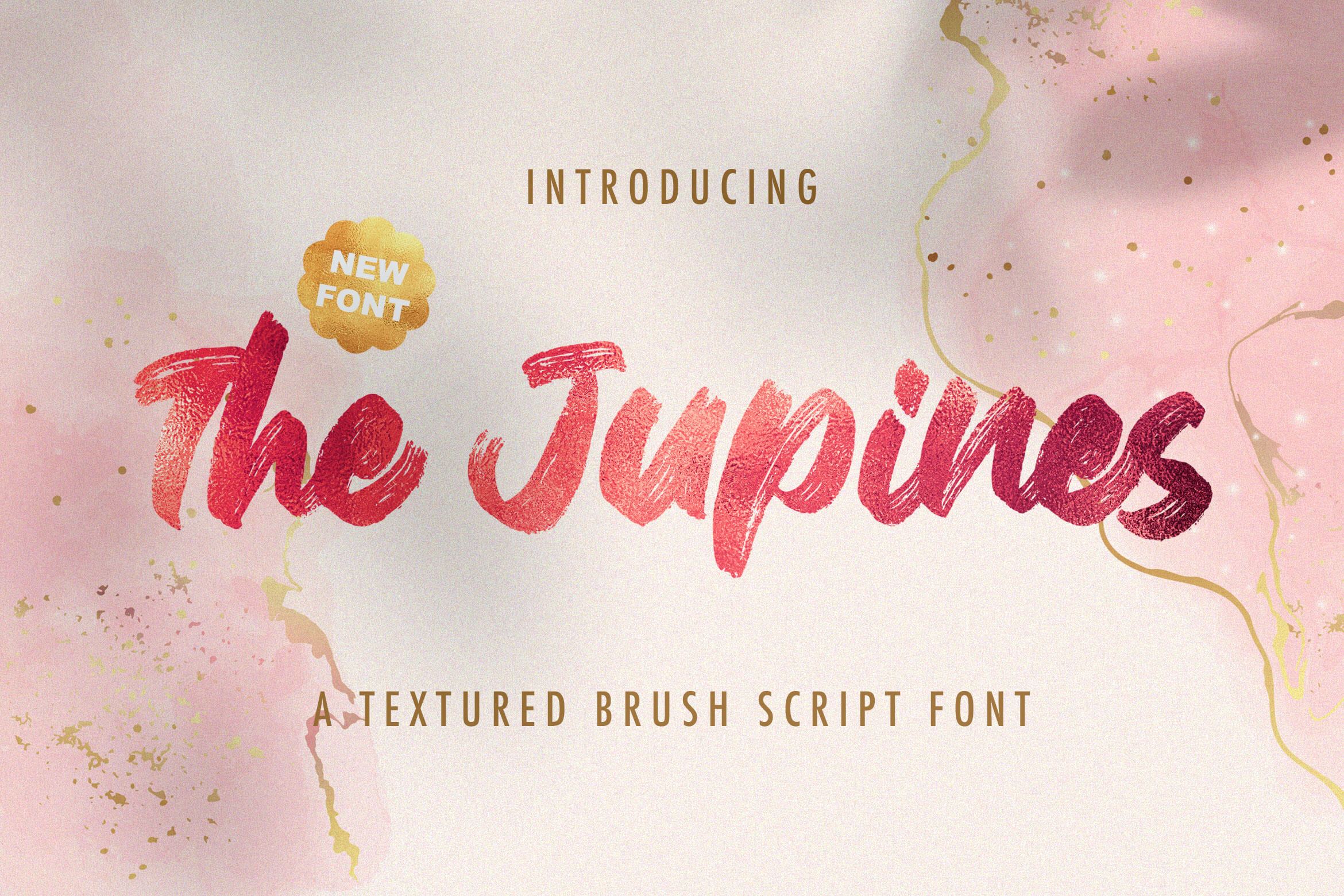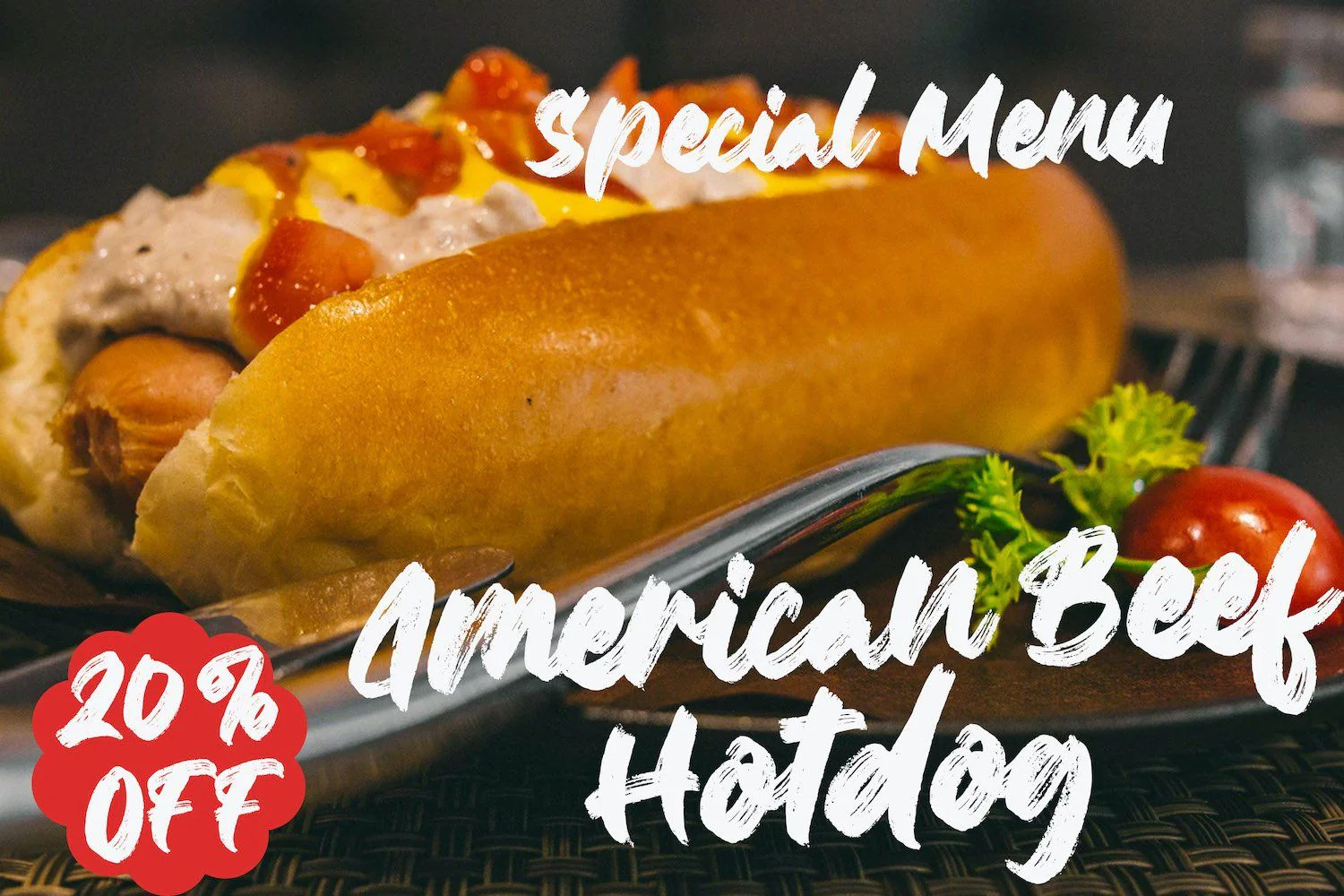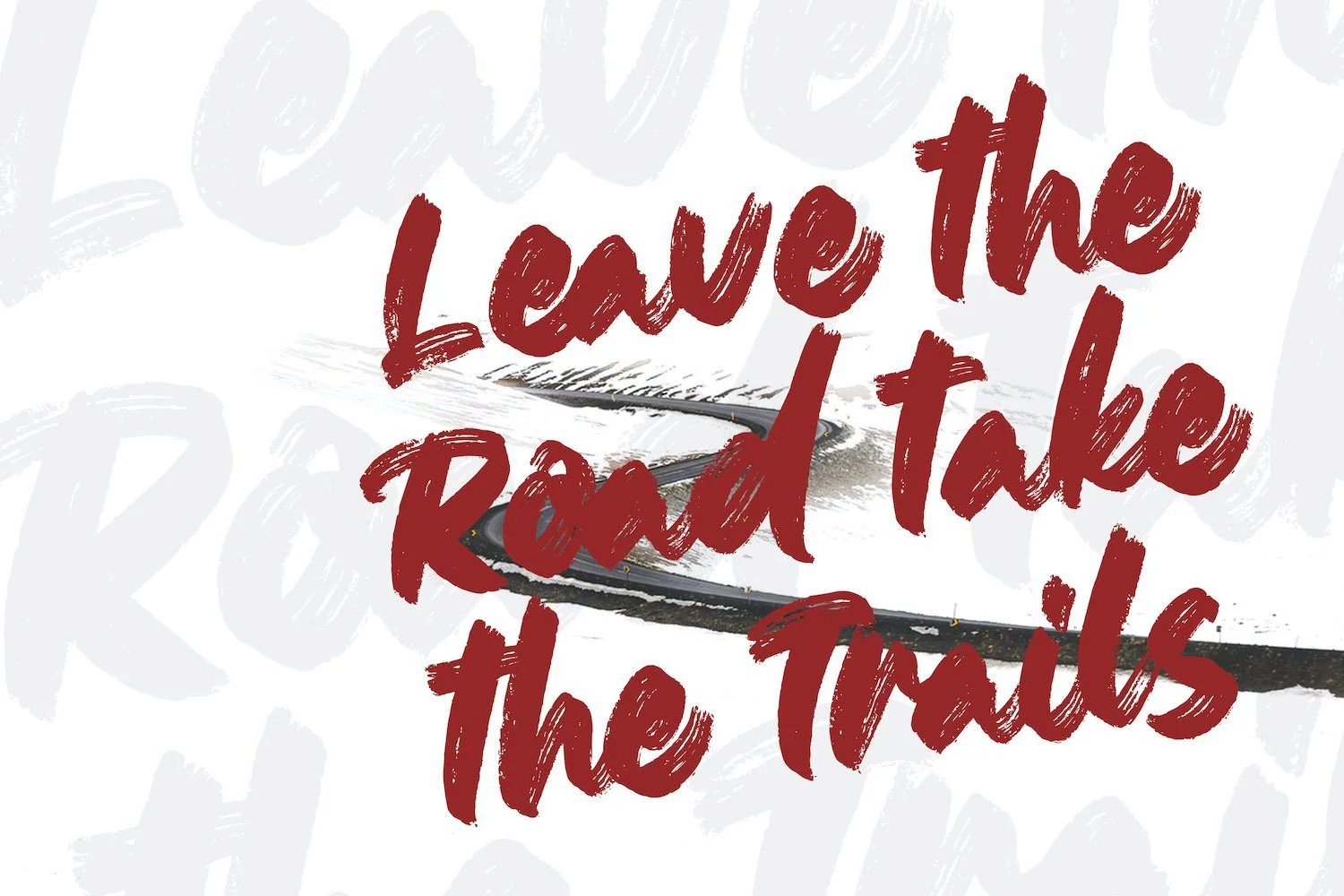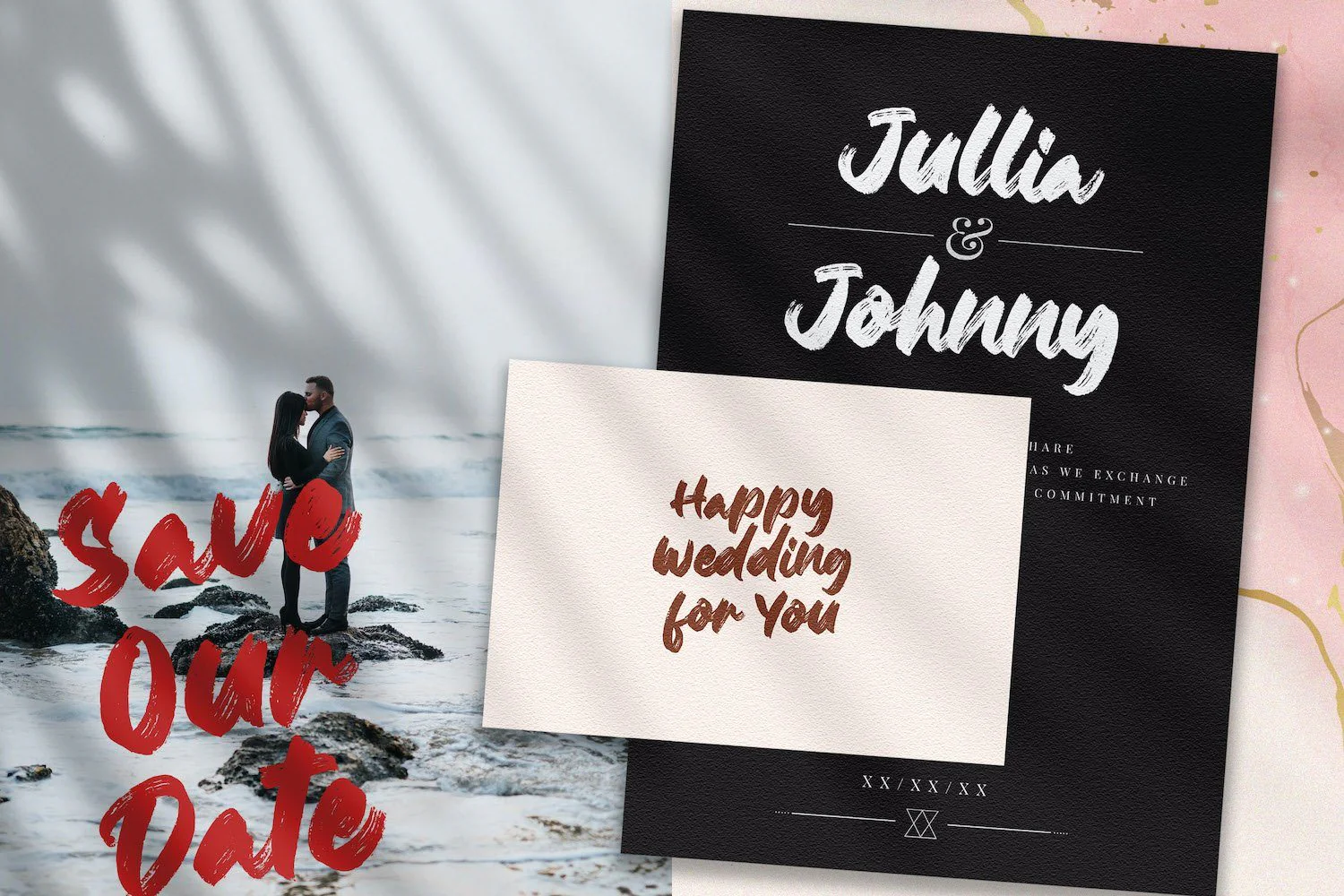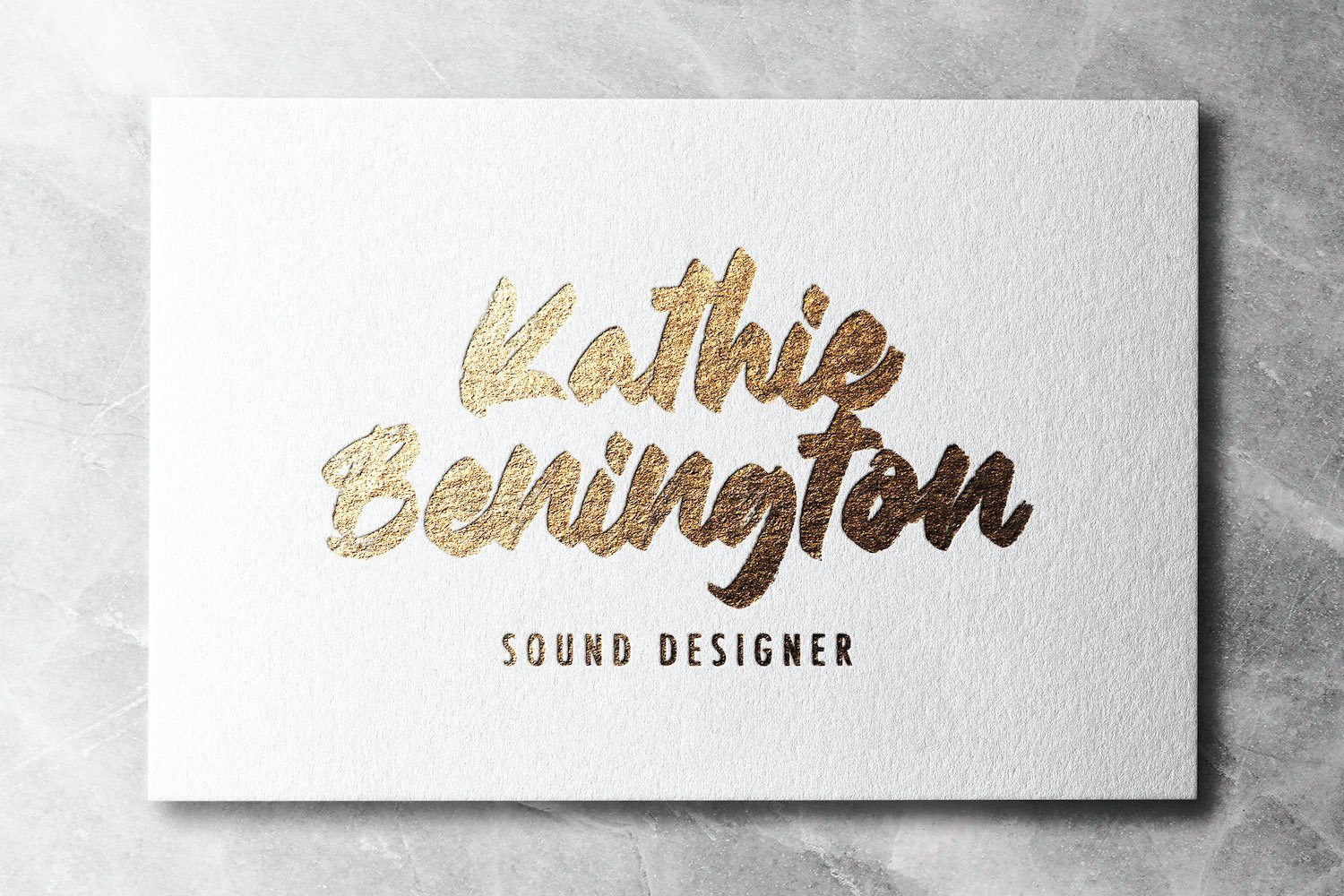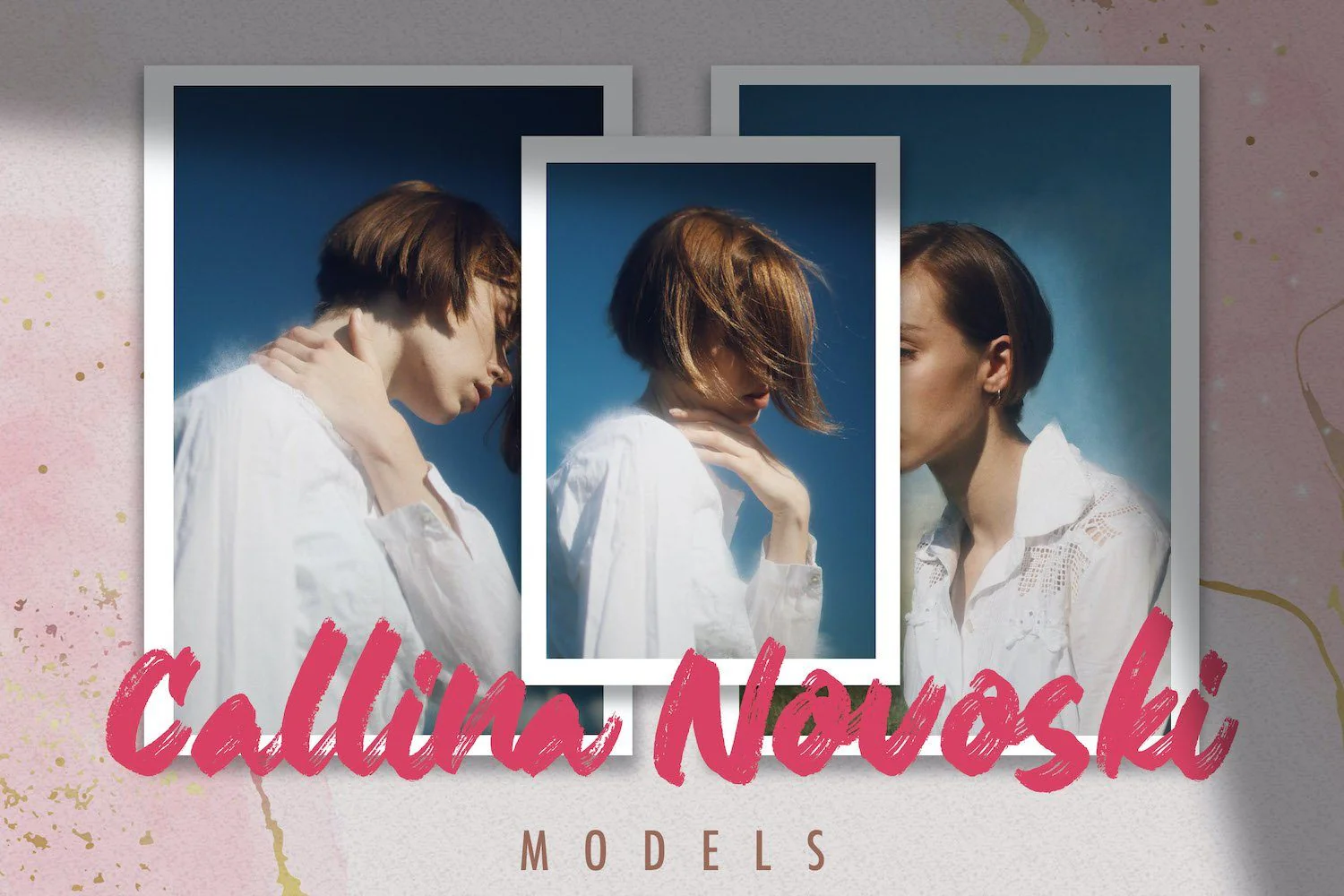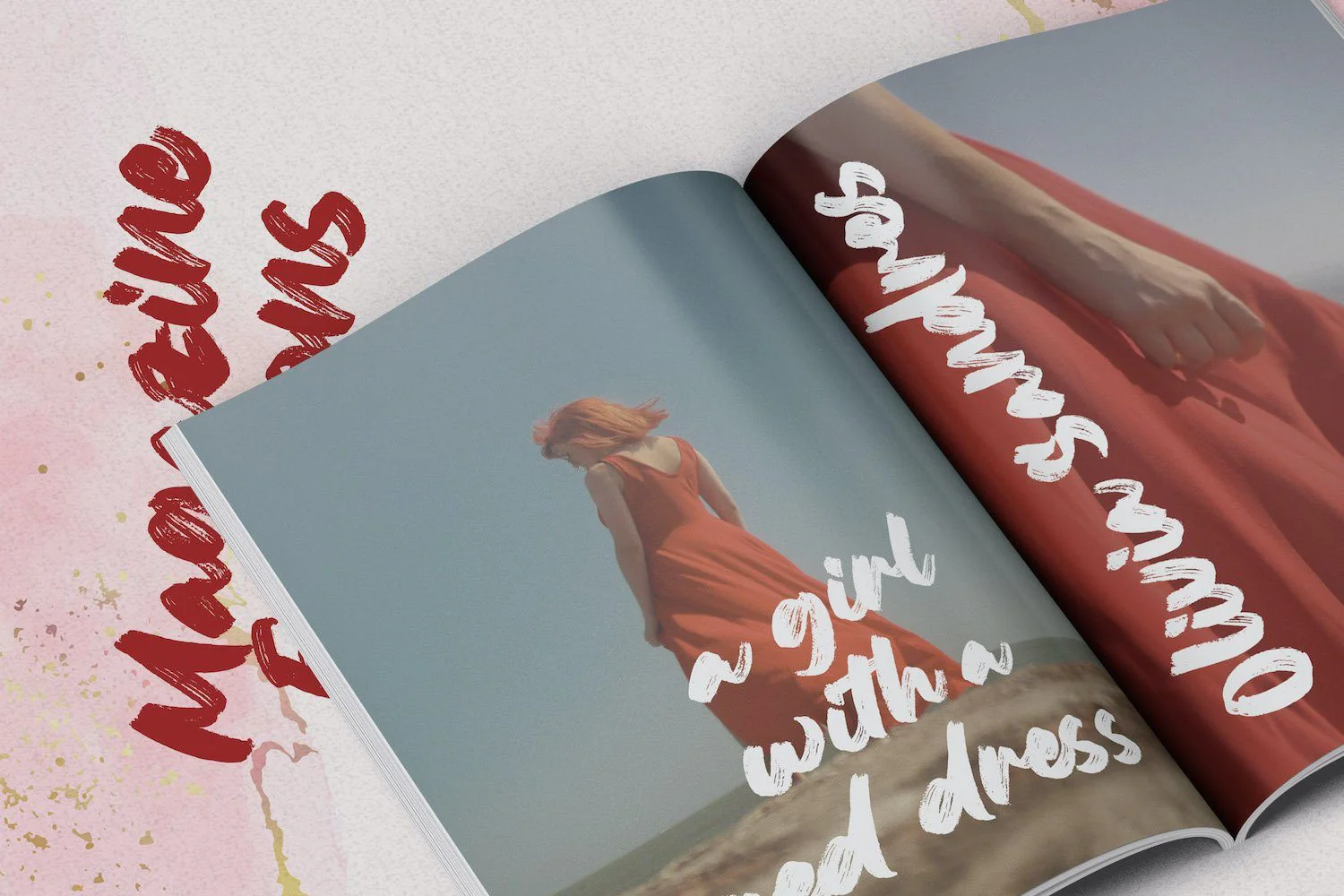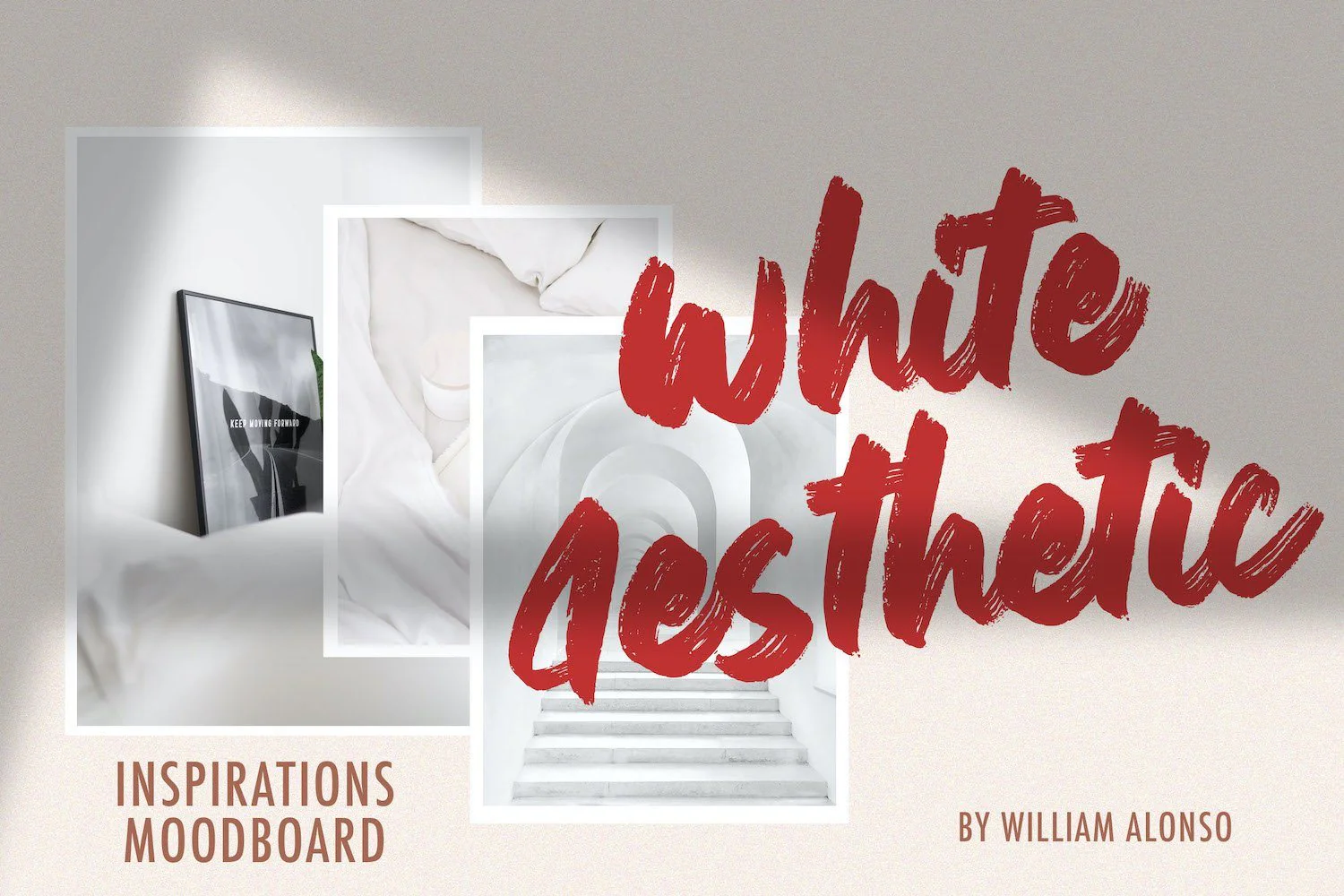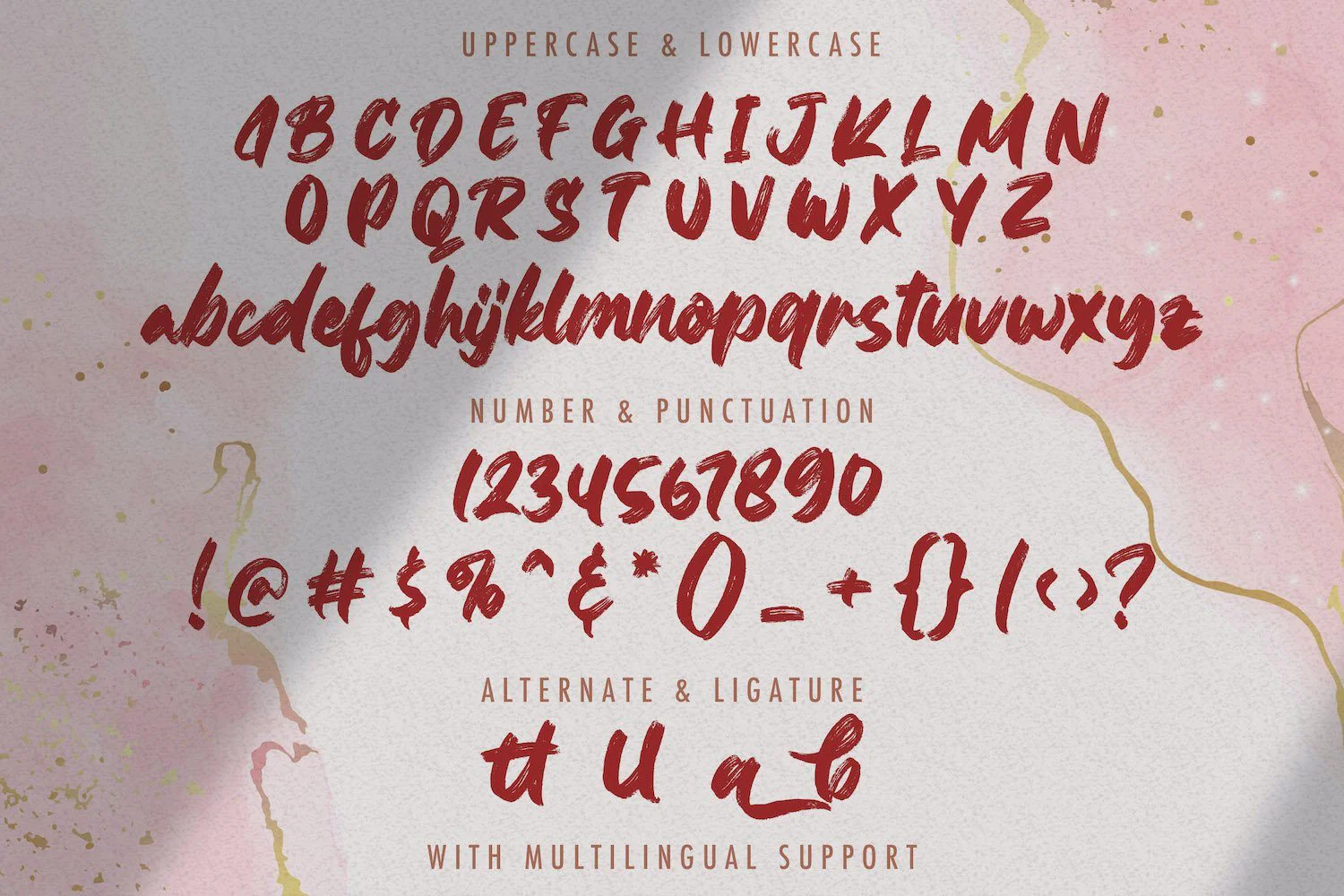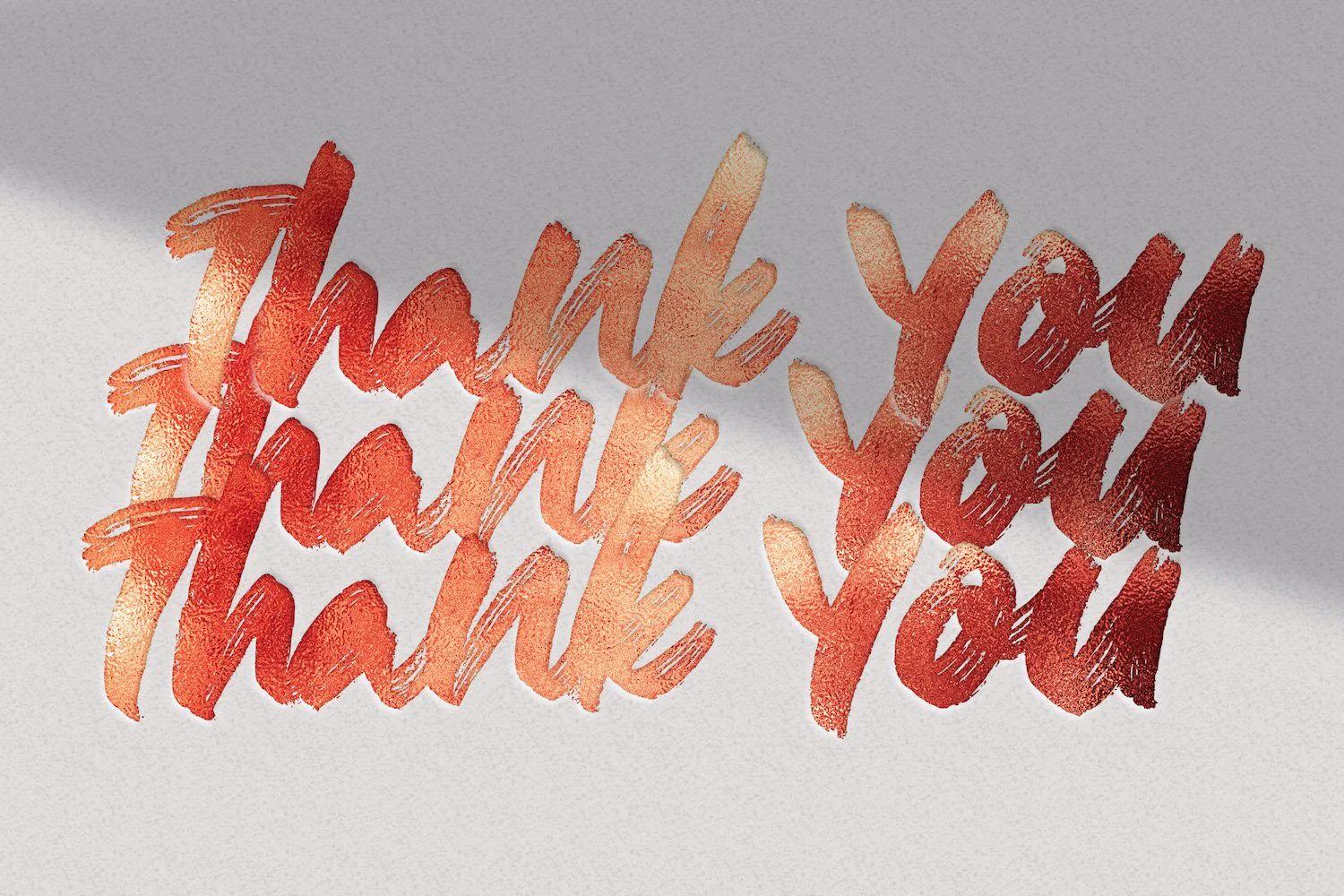
The Junipes - Textured Brush Font
Introducing The Junipes - Textured Brush Font
The Junipes is a textured handbrush font. Get inspired by its unique and beautiful style and add it to your favorite designs!
Introducing The Junipes - Textured Brush Font
The Junipes is a textured handbrush font. Get inspired by its unique and beautiful style and add it to your favorite designs!